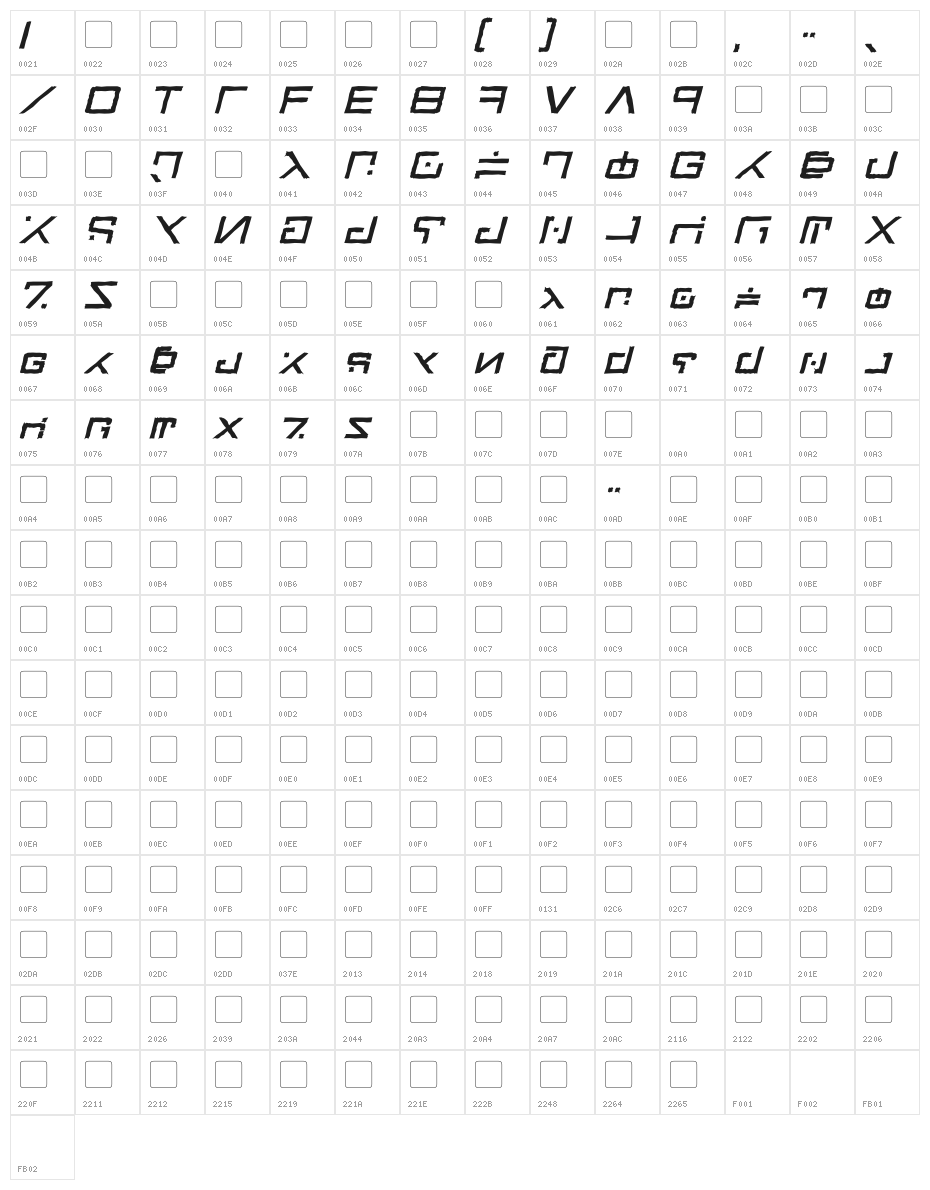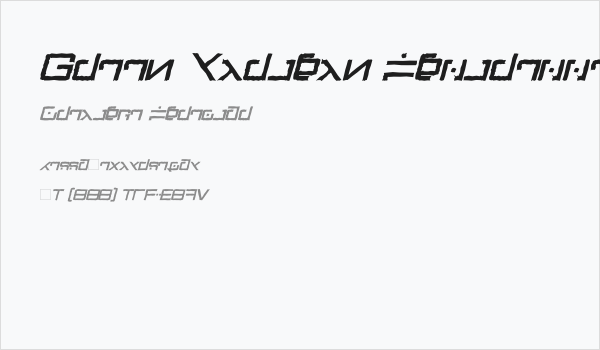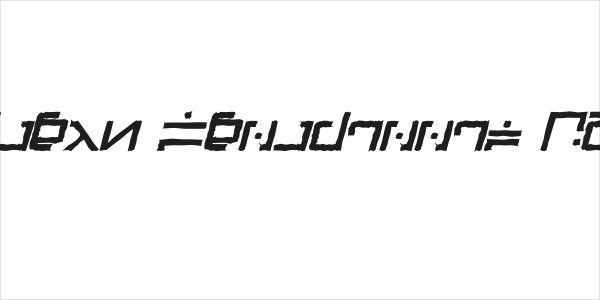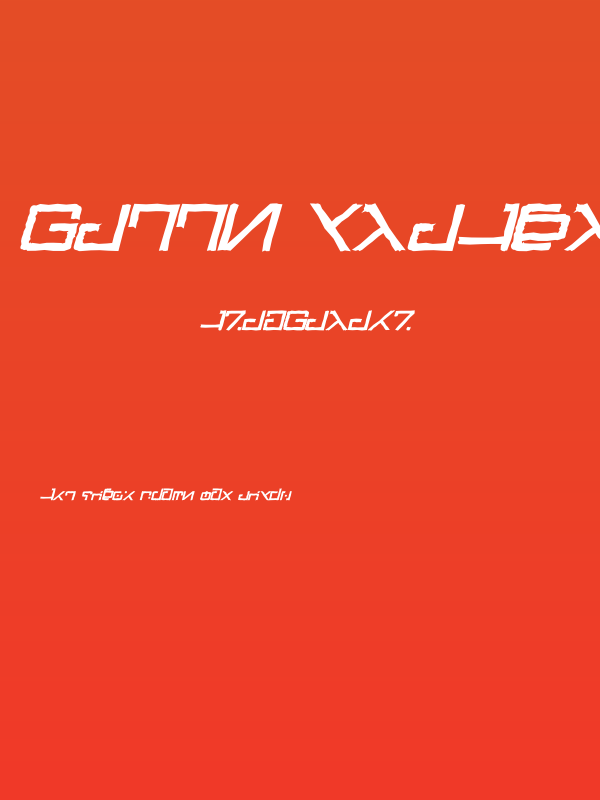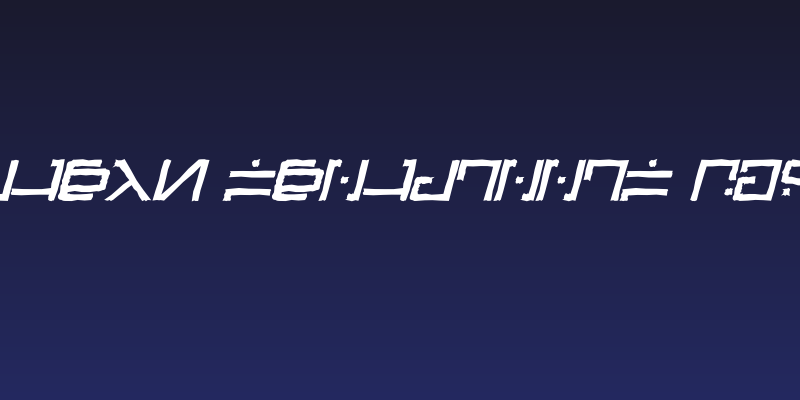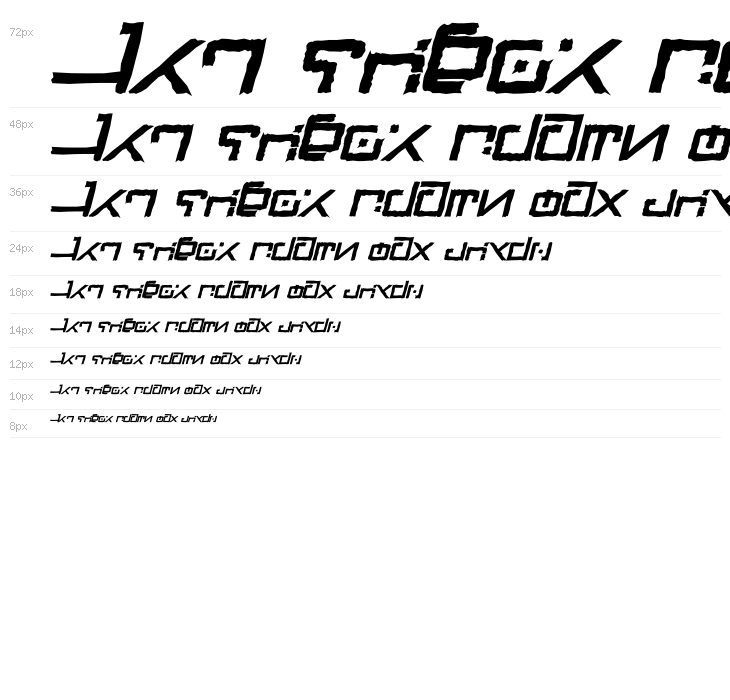
Green Martian Distressed Bold Italic Font
Green Martian Distressed Bold Italic Description
This font features a bold and italicized style with a distressed appearance, giving it a rugged and futuristic look. The characters are uniquely designed with sharp angles and irregular edges, creating a sense of movement and energy. The uppercase and lowercase letters maintain a consistent design theme, while the numbers and special characters complement the overall aesthetic. The font's distressed texture adds a layer of complexity, making it suitable for projects that require a bold statement or a sci-fi theme.
| Overall Style | Futuristic, Rugged |
| Proposed Projects | Ideal for sci-fi movie posters, video game titles, edgy branding, and graphic novel covers. |